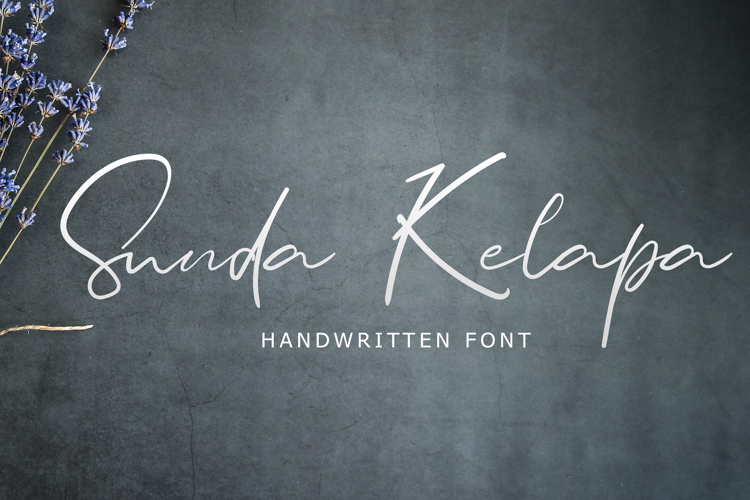
Sunda Kelapa Font
Sunda Kelapa is a lovely signature script. It has a natural writing style and will add a classy touch to your creations. Fall in love with its incredibly versatile style and use it to create spectacular designs!